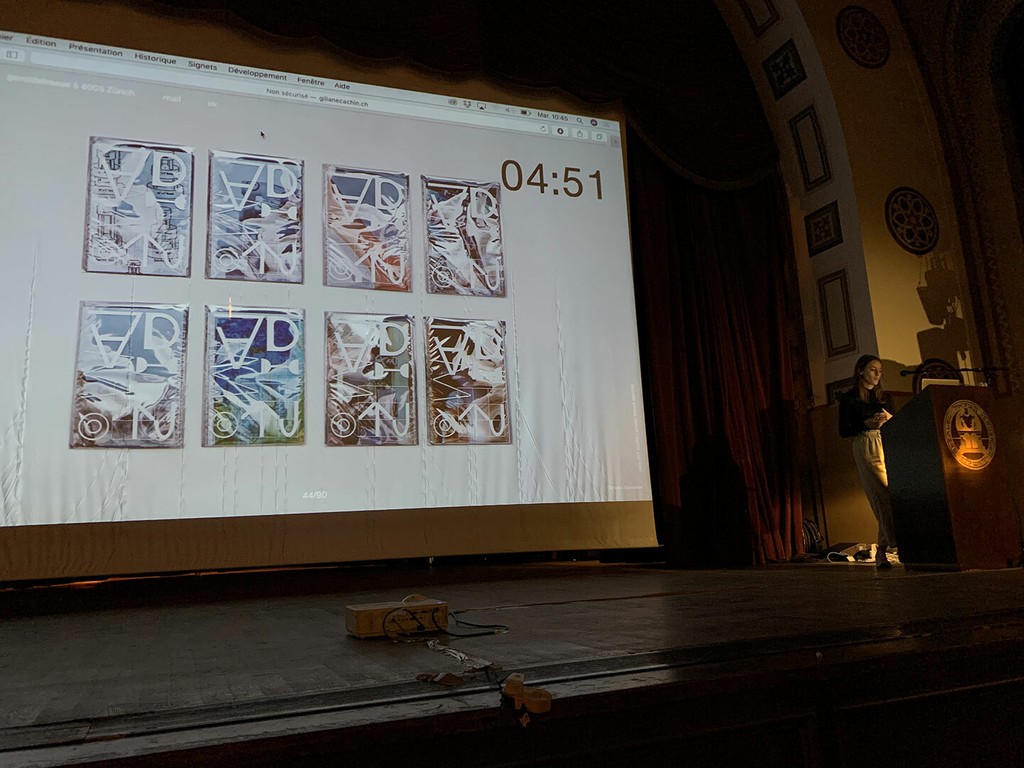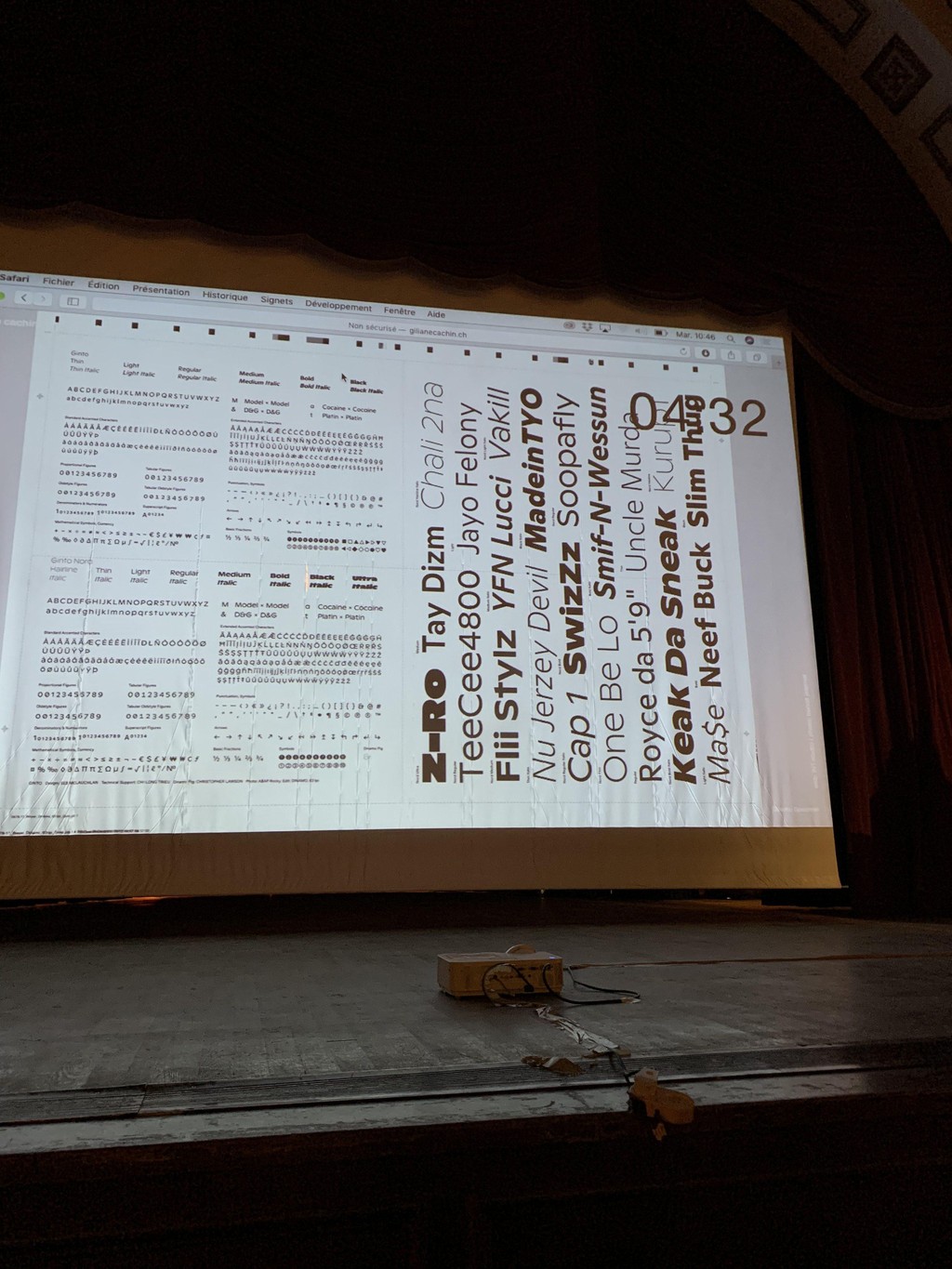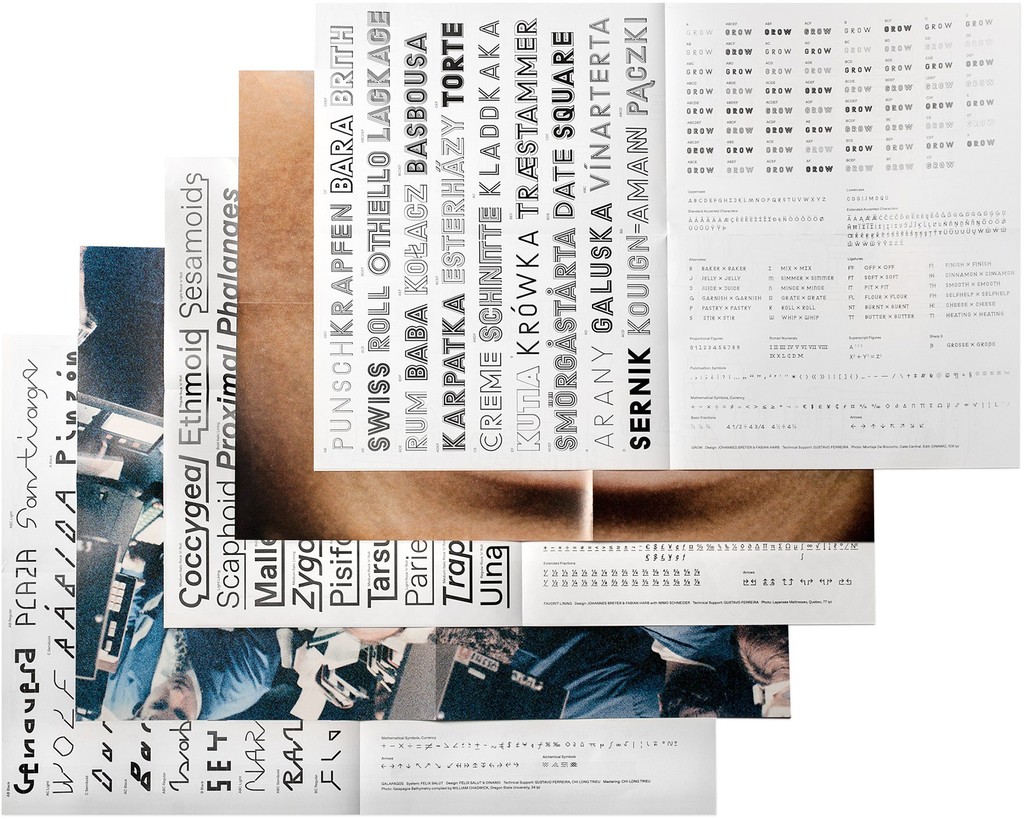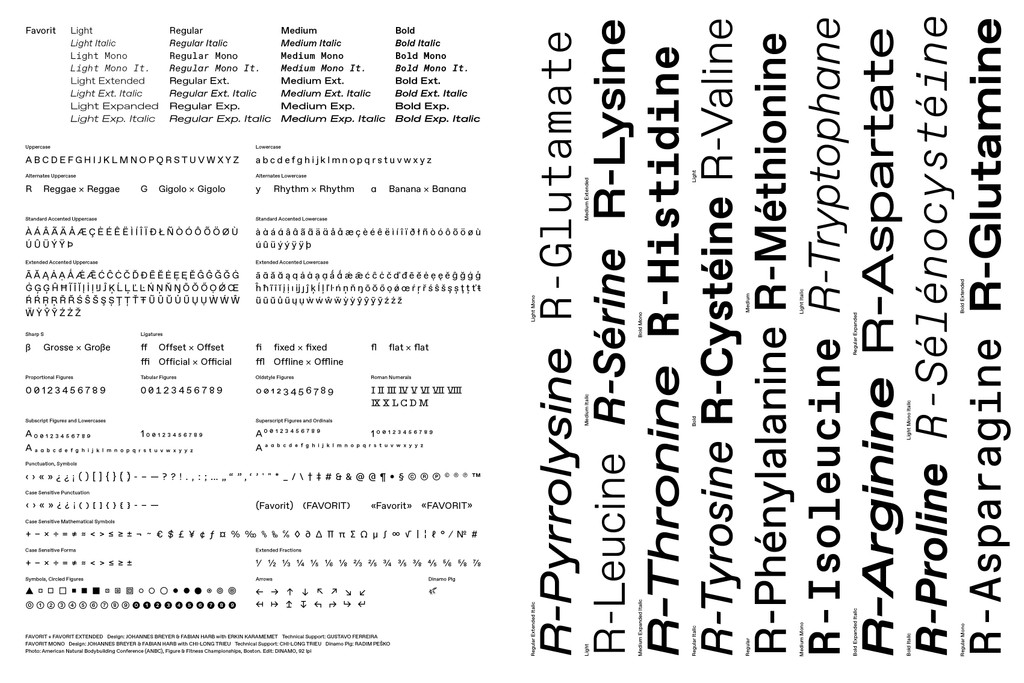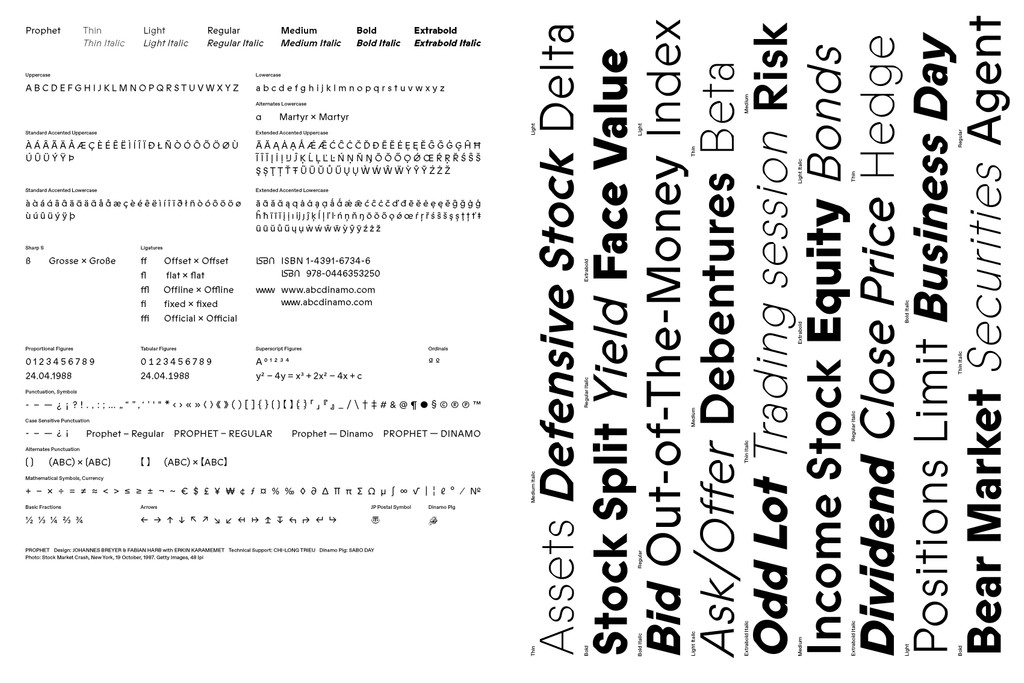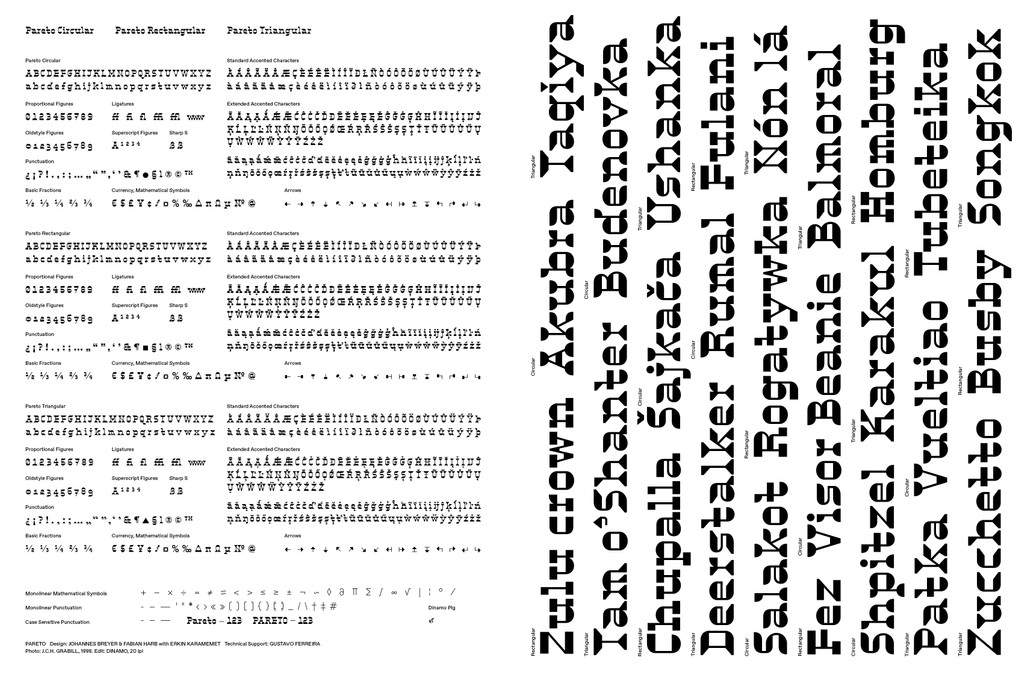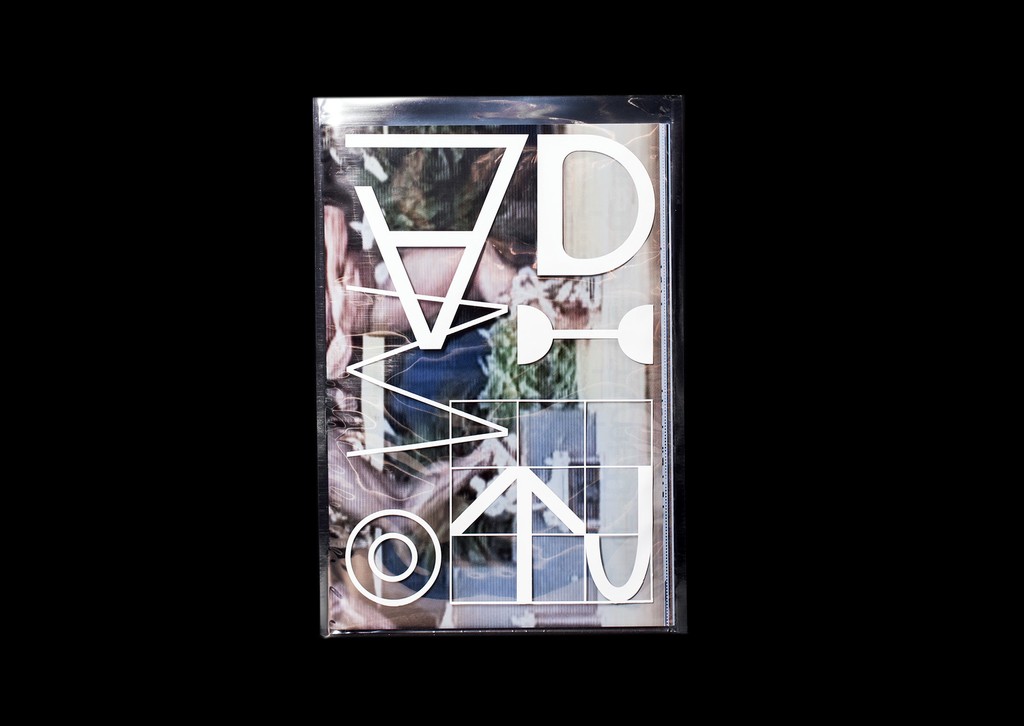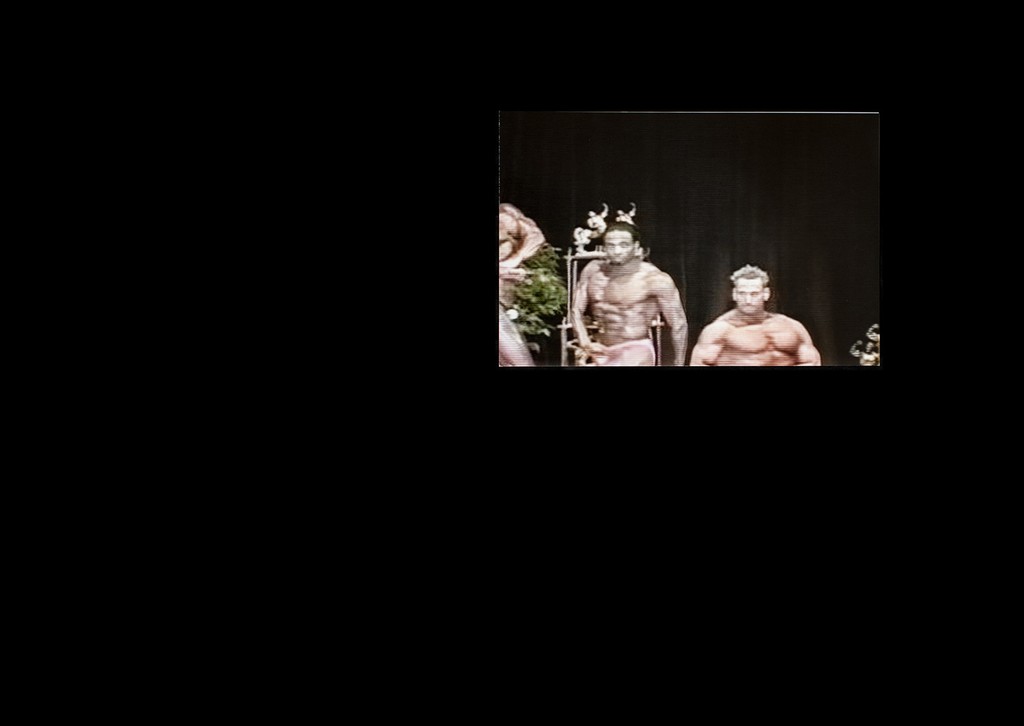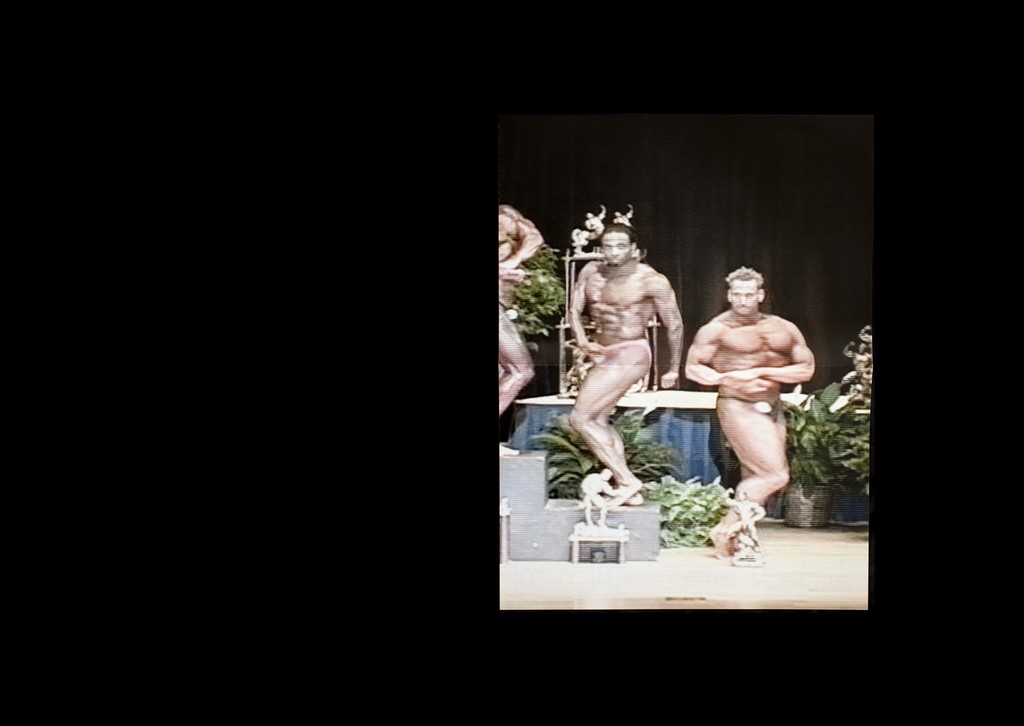
Printed Specimen
Dinamo Specimen
After receiving the Swiss Design Award in 2017, for the very first time we decided to compile all of our typeface together to form a newspaper-like publication. Each typeface occupies one of eight loose sheets and displays the complete character set. On the reverse side of the sheets, selected images associatively reflect the core ideas behind each typeface, and our About spread reveals more of our studio’s inner-workings (including more information on our pen-wielding da Vinci Surgical System). Each sheet has been printed using a different offset raster (ranging from 20–160 LPI), so that the publication forms not only a type specimen, but also a print-raster specimen. The Dinamo Specimen comes contained in an anti-static poly bag that’s screen printed in white ink that’s been mixed with 20% silver.
The Dinamo Type Drawing robot at work
Giliane Cachin presenting her work on the specimen in Tel Aviv, Israel, during the Swiss Design Week 2019